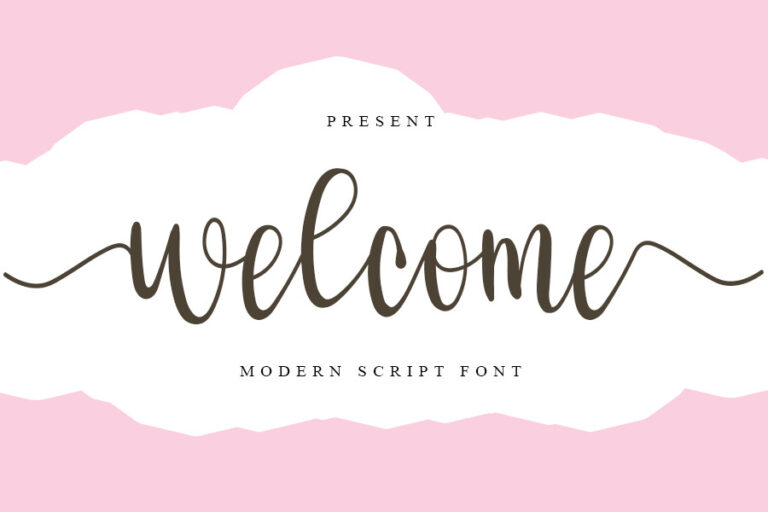
Detail Information Welcome is a gorgeous and elegant handwritten font. Use it for any design projects that require a charming appearance! This font is PUA encoded which means you can access all of the glyphs and swashes with ease! Compatibility Of Welcome Font Windows Apple/Mac Linux Easily convert to webfont Cricut Silhouette Other cutting machines…